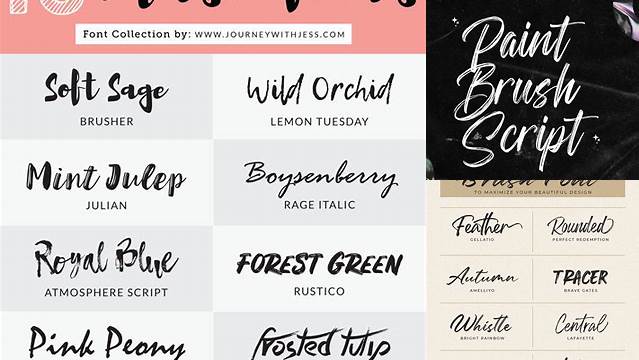
Download Brush Script Fonts: Free & Premium Options
Hey everyone! If you're looking to add a touch of elegance, personality, or a handcrafted feel to your designs, then you've come to the right place! Today, we're diving headfirst into the wonderful world of brush script fonts, specifically the Brush Script Std family. These fonts are incredibly versatile and can be used for a huge range of projects, from wedding invitations and logos to social media graphics and website headers. I'm going to guide you through the process of getting your hands on some amazing Brush Script fonts, including where to find free downloads and explore premium options. Let's get started and make your designs pop!
1. Understanding the Allure of Brush Script Fonts
Brush script fonts, guys, they're just different. They have a unique charm, a certain je ne sais quoi that sets them apart from your standard sans-serif or serif fonts. Their defining characteristic is that they mimic the look of handwriting done with a brush or pen. This gives them a natural, organic feel, perfect for projects where you want to convey warmth, personality, and a human touch. When we talk about Brush Script Std fonts, we're usually referring to a specific font from the broader Brush Script family. Brush Script Std fonts are known for their elegant strokes, flowing connections, and the subtle imperfections that make them feel authentic. This makes them ideal for creating a sense of sophistication, romance, or a touch of playfulness. You can use them on invitations, stationery, and branding, and even on websites. They are incredibly popular because they manage to capture the essence of handwritten lettering while maintaining legibility and visual appeal. And let's not forget the wide variety of styles they offer. From bold and dramatic scripts to more delicate and refined ones, there's a Brush Script font to match any design aesthetic or project requirements. That flexibility is definitely one of the main reasons why they're so beloved by designers.
This is the main reason why these font options are incredibly popular. If you want to add a touch of authenticity to your designs, then brush script fonts are your best bet. When you download a brush script font, it instantly elevates your design from the ordinary to the extraordinary. It gives it a certain edge that makes it stand out and draws viewers in. Remember, your choice of font can make or break your designs. So, choose wisely and consider the mood you're trying to establish and the message you want to deliver. Brush script fonts can be great for that.
3. Exploring the Brush Script Std Font Family
Now, let's dig a little deeper into what makes the Brush Script Std font family so special. While the term often refers to a specific font, it's worth exploring the different variations and styles that are included. This might include different weights (light, regular, bold), character sets, or stylistic alternates. The variations within a font family can significantly affect your design. For example, using a bolder weight for headlines can create more emphasis, while a lighter weight for body text can improve readability. So, experiment with the different options to see what works best for your project. Also, the character set is super important. Pay attention to the glyphs and special characters included in the font. Do you need support for multiple languages? Does the font have the ligatures and alternate characters that will enhance your design's visual appeal? Take some time to explore what each font in the family offers and how the characters are structured. That way, you are choosing the right one that will make your designs look the best! Remember that the perfect font is the one that matches the essence of your design.
As you explore the different styles, you'll begin to understand how to leverage the Brush Script Std family to achieve your specific design goals. The versatility of these fonts is amazing and enables them to complement a wide range of design projects. And also, do not be afraid to step out of your comfort zone and try combining these fonts with other types. You will be surprised at how great they can be! Always remember, guys, the font style is just one of the important elements of your design. Always be on the lookout to combine them with other elements of your design.
5. Using Brush Script Fonts in Design Projects
Now, the fun part! How do you actually use these Brush Script Std fonts in your design projects? These fonts shine in projects that need a personal touch. Think invitations, greeting cards, wedding stationery, and anything else that wants to convey a sense of warmth and authenticity. They are also fantastic for creating logos and branding for businesses that want to present a friendly, approachable image. You can use them in social media graphics, website headers, and even in packaging design. For example, a restaurant might use a brush script font for its logo and menu design, and you can use it for various types of projects. When you're using a Brush Script font, consider the following. Don't overuse the font! It's best used for headlines, titles, or shorter pieces of text to make an impact. Pair it with a clean, easy-to-read font for body text to improve readability. Pay attention to the kerning (the space between the letters) and tracking (the overall spacing of the letters) to ensure your text looks balanced and professional. Also, think about the color. Brush script fonts pair beautifully with a range of colors, from soft pastels to bold, vibrant hues, so experiment with different color palettes to create the desired effect. The goal is to get a design that complements the essence of your project! Using brush script fonts also requires balance! The more you use them, the less impact they have! So, use it sparingly for a good result.
9. Brush Script Font Alternatives: Exploring Similar Styles
While Brush Script Std fonts are amazing, it's always a good idea to explore alternative styles to ensure you find the perfect fit for your project. There are tons of fonts that fall under the general